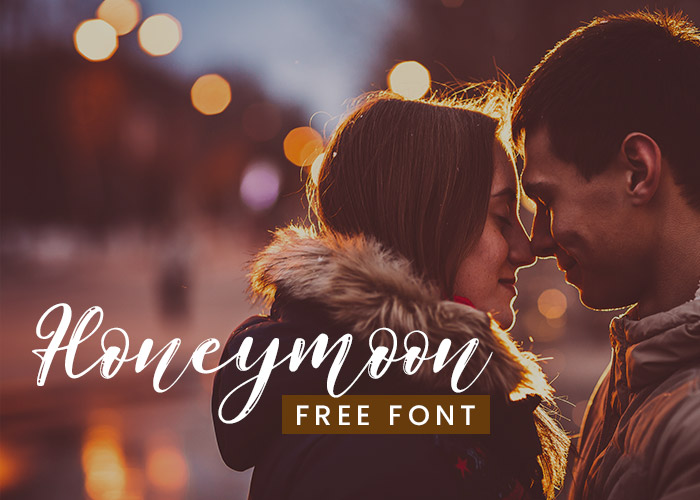
• Free handwritten script font: Honeymoon
• Ideal for social media, banners, cards, invites, and more
Honeymoon Free Font
Honeymoon is a handwritten Script Font that represents certainty, potency, and integrity.
Use it for social media posts, banners, thumbnails, cards & invites, and more! You can also use this for multipurpose design, combining your most original ideas to bring them to life.
Sneak Peek Into Honeymoon Font: